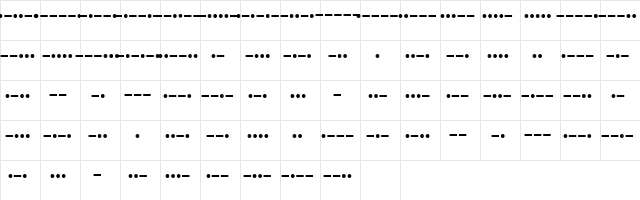
Design Context for XInterntnlMorseCodeIT
XInterntnlMorseCodeIT uses fixed-width spacing throughout, giving it the structured, systematic character associated with coding environments and technical documentation.
Well-suited to data-driven dashboards, coding tutorials, and any design that wants to reference the world of programming.
Font Pairing: Pairs well with a humanist sans-serif for body copy - the contrast between mechanical precision and organic warmth creates a compelling typographic dynamic.
Pro Tip: Use XInterntnlMorseCodeIT with slightly increased line-height for extended reading - fixed-width spacing can feel dense in longer passages without extra breathing room.